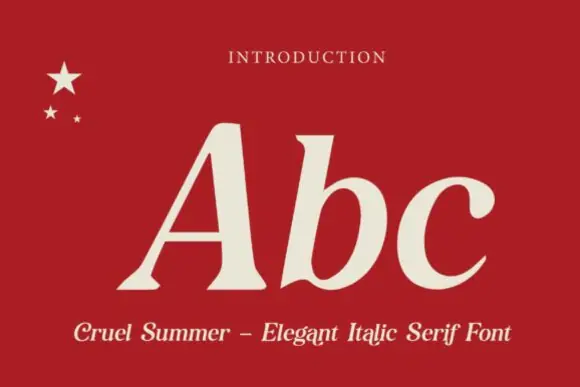
Cruel Summer Italic Serif Font – Sophisticated Modern Editorial Typeface for Luxury Branding, Fashion Magazines, Logos, Packaging, Invitations & Elegant Creative Projects
Create refined, stylish, and fashion-forward designs with Cruel Summer Font, an elegant italic serif typeface that blends classic serif sophistication with a modern editorial aesthetic. Its graceful italic form gives your typography a luxurious and polished look, making it perfect for projects that need beauty, class, and contemporary elegance.
Cruel Summer Font is ideal for luxury branding, logos, fashion magazines, editorial layouts, product packaging, boutique labels, wedding invitations, beauty branding, social media graphics, website headers, business cards, quote designs, book covers, posters, and premium marketing materials. Its modern serif refinement helps your text feel elegant, expressive, and visually memorable.
Whether you are creating a high-end brand identity, stylish magazine title, luxury product label, refined invitation, or fashion-inspired promotional design, Cruel Summer Font adds a signature air of sophistication and modern luxury to your work. It is especially useful for designers, branding specialists, fashion creators, beauty brands, boutique owners, publishers, and digital product sellers who want an italic serif font with a premium editorial feel.
Luxury branding, logos, fashion magazines, editorial layouts, product packaging, boutique labels, wedding invitations, beauty branding, social media posts, website headers, business cards, quote designs, book covers, posters, and elegant promotional designs.
Key Features
• Elegant italic serif font style
• Sophisticated and modern editorial appearance
• Blends classic serif refinement with contemporary style
• Perfect for luxury branding, magazines, and creative projects
• Great for fashion, beauty, packaging, and invitations
• Adds a polished high-end feel to typography
• Suitable for digital, print, branding, and commercial designs